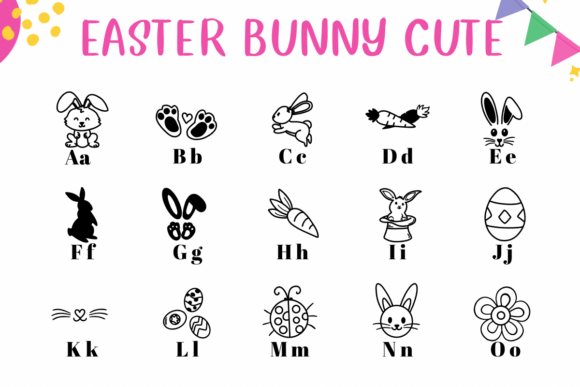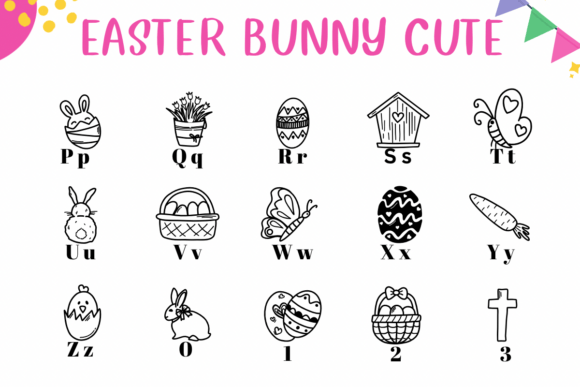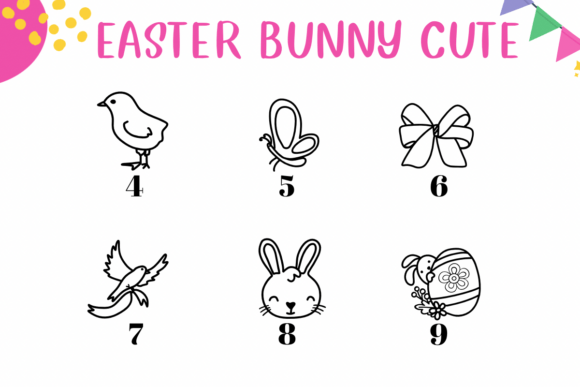
Introduction to Easter Bunny Cute Font
Easter Bunny Cute is a dingbats font with a cute theme.
This font can enhance your creative projects such as wedding invitations, DIY, crafts, decorations, logos, and many other creative ideas .